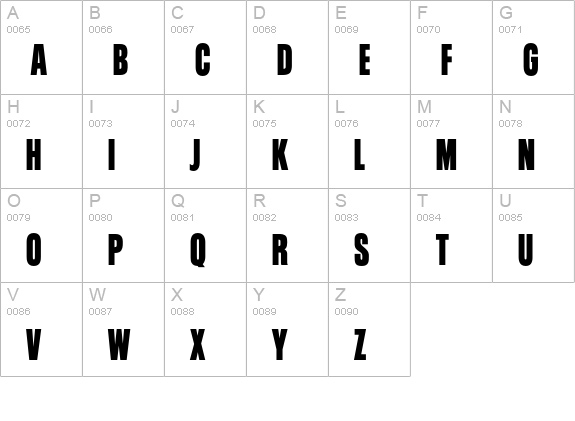
Hombre Font Details
Hombre font is a bold and versatile typeface that exudes masculinity and strength. With its sharp angles and clean lines, this font commands attention and makes a powerful statement. Perfect for headings, logos, and branding projects, Hombre font adds a touch of modern flair to any design. What's even better is that Hombre font is available for free download at FontsMarket.com. So you can easily incorporate this striking font into your projects without breaking the bank. Don't miss out on this incredible opportunity to elevate your designs with the bold and impactful Hombre font. Download it today and bring your creative vision to life!